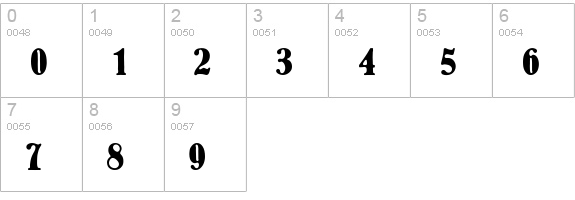
Bernhard Antique Font Details
Bernhard Antique is a timeless and elegant font that exudes sophistication and charm. Its classic serifs and graceful flourishes make it perfect for adding a touch of refinement to any design project. With its vintage appeal and versatility, Bernhard Antique is a standout choice for invitations, branding, and editorial designs. This beautifully crafted typeface is available for free download at FontsMarket.com, making it accessible to designers and creatives looking to elevate their work with a touch of timeless elegance. Whether you're working on a wedding invitation, a logo design, or a magazine layout, Bernhard Antique is sure to make a lasting impression. Download it today and add a touch of class to your next project.